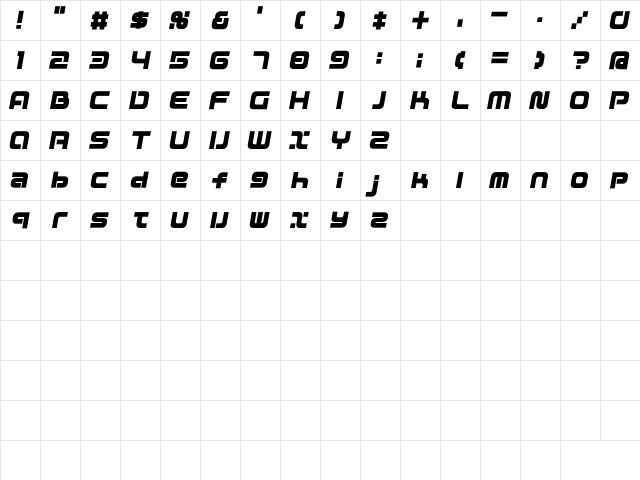
D3 Mouldism Round Italic Regular Font Preview
Design Context for D3 Mouldism Round Italic Typeface
D3 Mouldism Round Italic softens its letterforms with rounded terminals, giving it an approachable, friendly quality that works well in consumer-facing and digital contexts. The dynamic lean of this cut emphasises speed and emphasis in any layout.
Well-suited to UI design, mobile interfaces, and any brand that wants approachability without sacrificing clarity.
Font Pairing: Pairs well with a rounded or humanist sans for body copy, maintaining the friendly tone without relying on D3 Mouldism Round Italic to carry extended reading.
Pro Tip: Use D3 Mouldism Round Italic for UI elements, app interfaces, and anywhere a friendly, approachable tone needs to be maintained without sacrificing clarity.